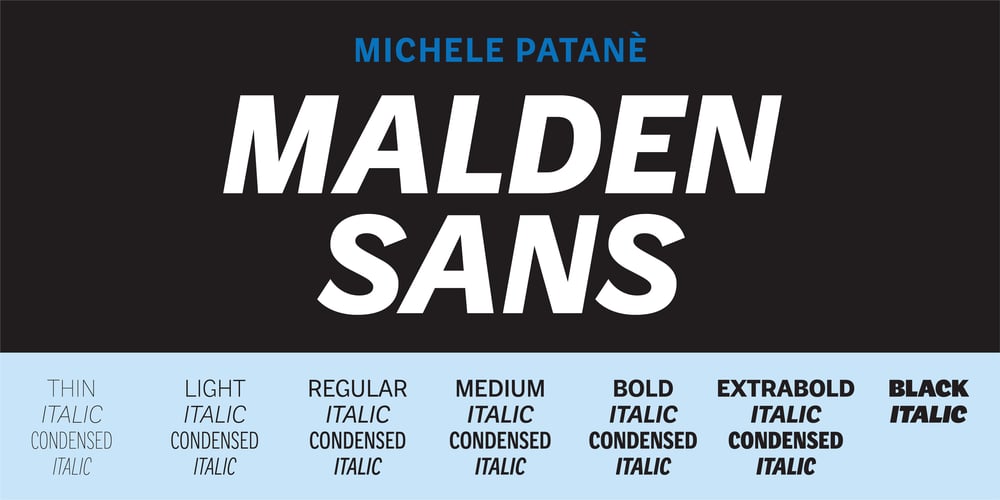
Malden Sans Font Family was designed by Michele Patanè and published by Monotype. Malden Sans contains 26 styles and family package options. Malden Sans is a mischievous grotesque sans serif with charming details that gives designers a solid typographic voice. It was created by Michele Patanè with regular and condensed widths, as a utilitarian typeface family for print and digital environments. It was originally designed as part of a type system for cinema magazines, and embodies the devil-may care attitude of the silver screen. Designer Michele Patanè looked back to an earlier era of typography to create the typeface, embracing unusual details, rather than ironing them out. “There is a very naive way of using typography in the 30s and 40s, something not as clean as how it’s used in the late 50s and 60s when everything passed through a rationalisation of the typographic palette,” he explains. “In film magazines you can still see a bit of roughness, and I like that.” This is a design that’s desperate to be used in editorial environments, and has been created to stand up to lower quality paper. It would be equally at home on posters, packaging, and even in digital environments where designers are looking for something more expressive than another geometric sans serif. Malden Sans includes a Normal and Condensed range, with 7 weights in the normal and 6 in the Condensed, both including italics.